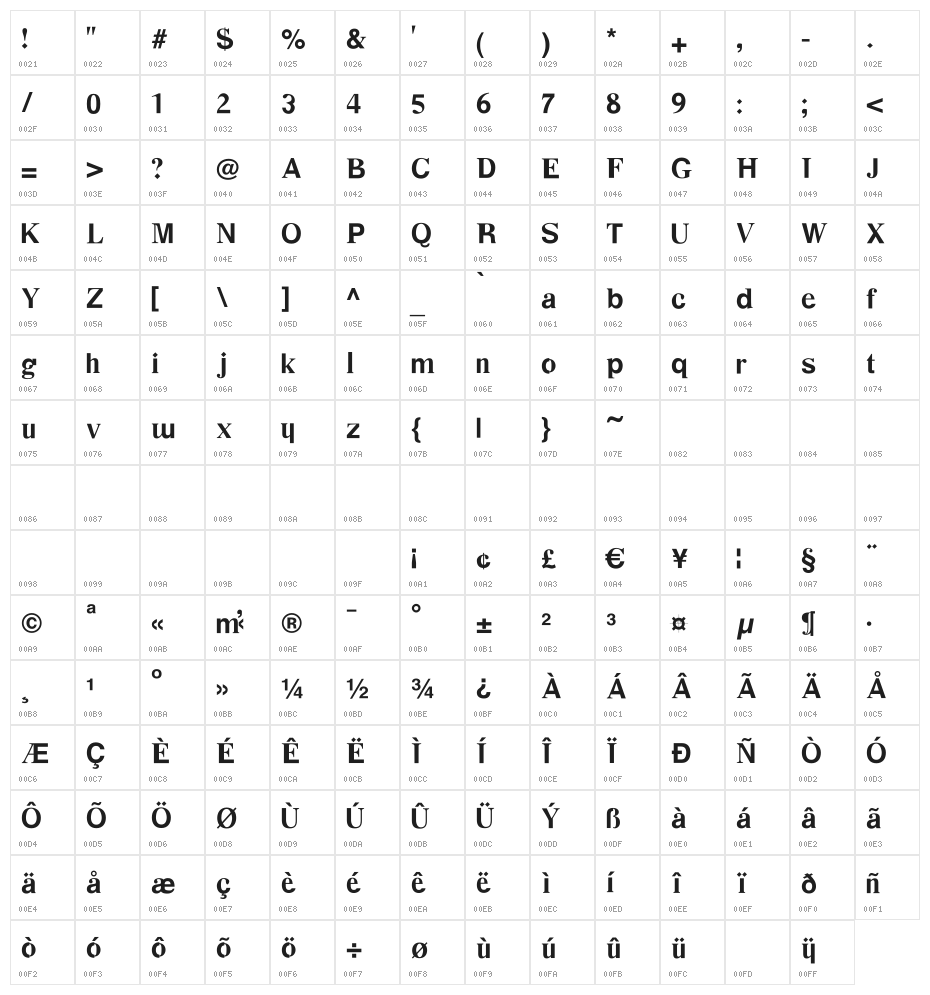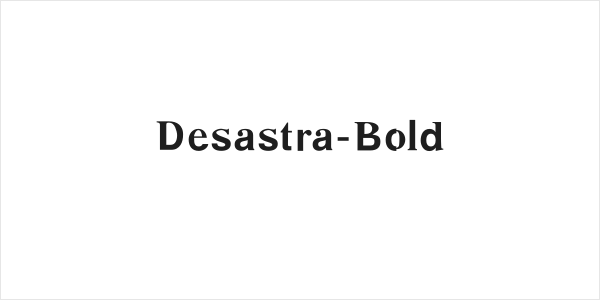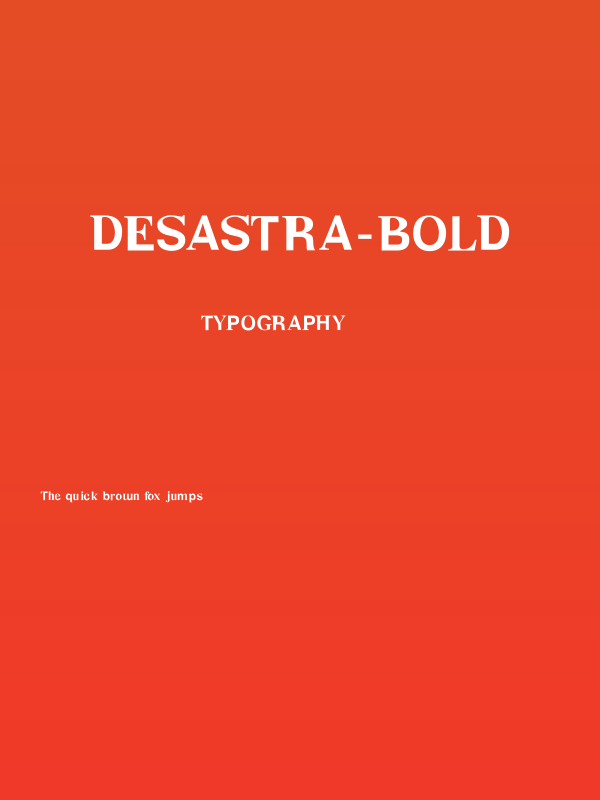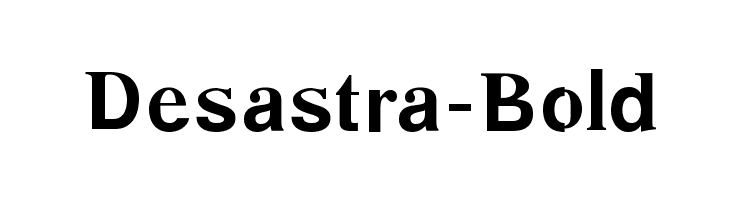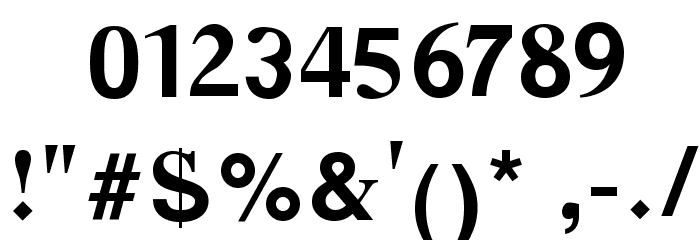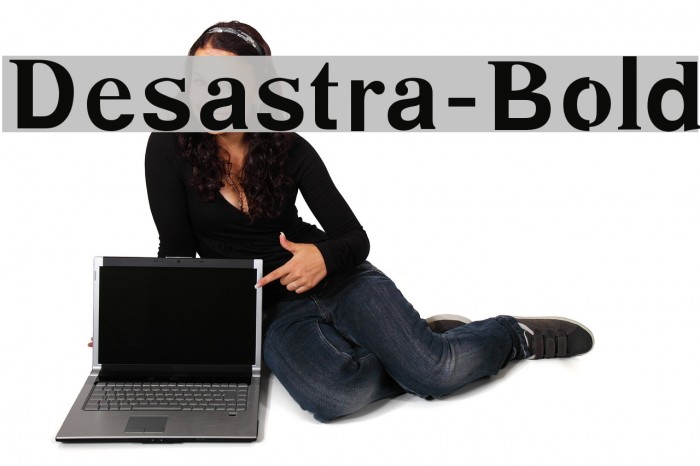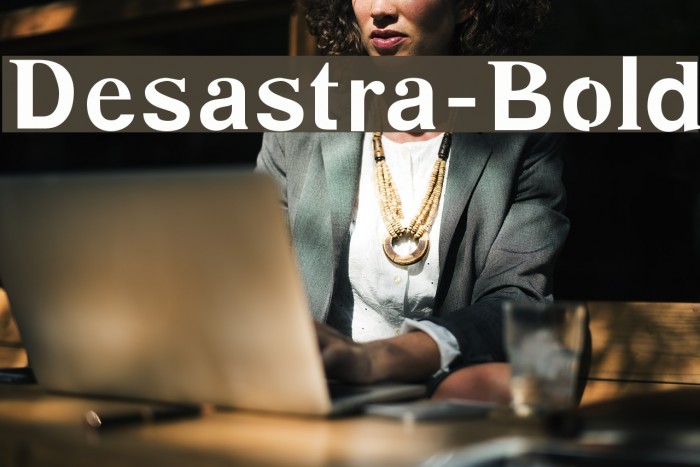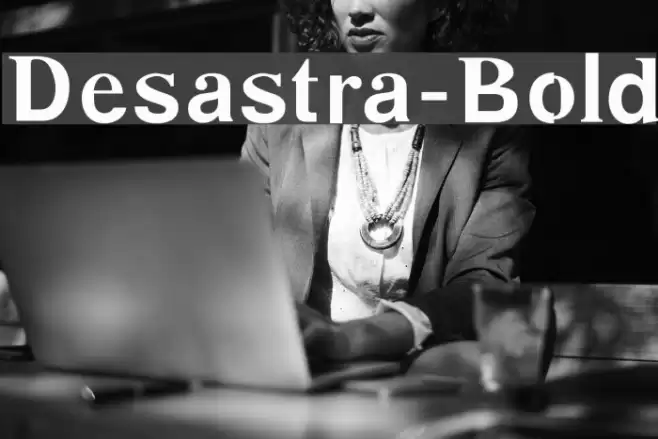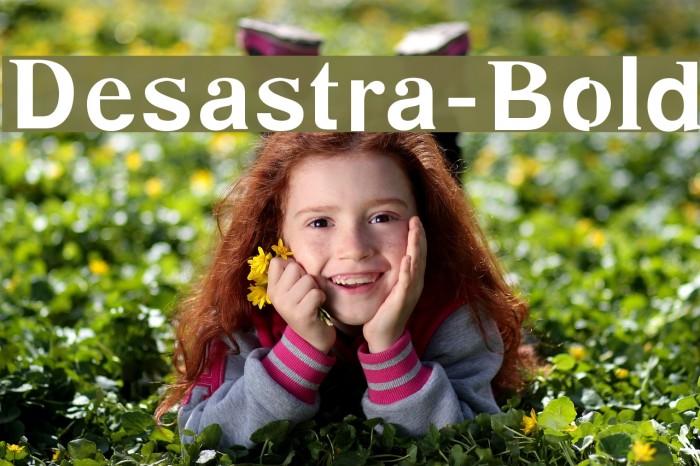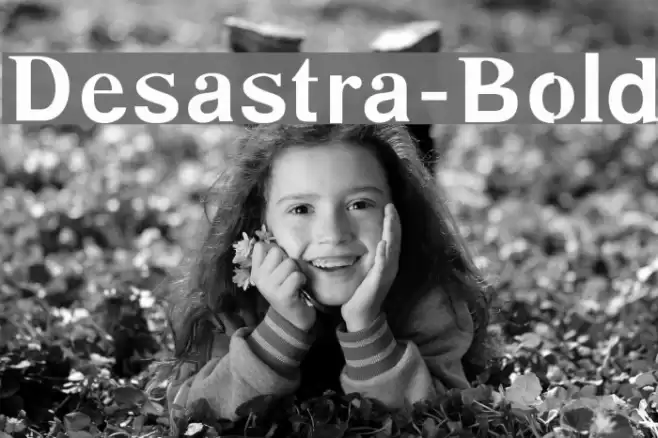
Desastra-Bold Font
Desastra-Bold Description
This font features bold, strong strokes with a classic serif style. The uppercase letters are prominent and commanding, while the lowercase letters maintain a consistent weight, offering a balanced appearance. The numerals are clear and legible, making them suitable for various applications. Special characters are well-defined, adding versatility to the font's use. The overall design is traditional yet impactful, suitable for making a statement in any text.
| Proposed Projects | Ideal for headlines, book covers, posters, and branding materials where a strong, classic presence is desired. |